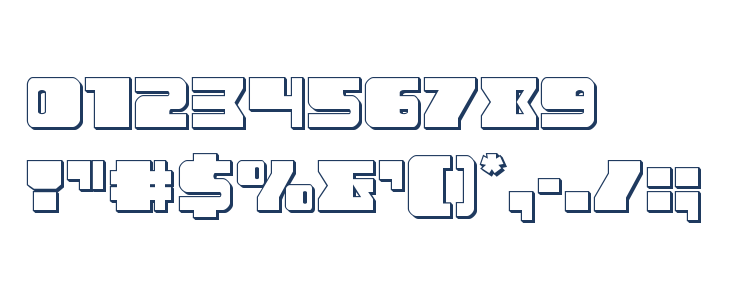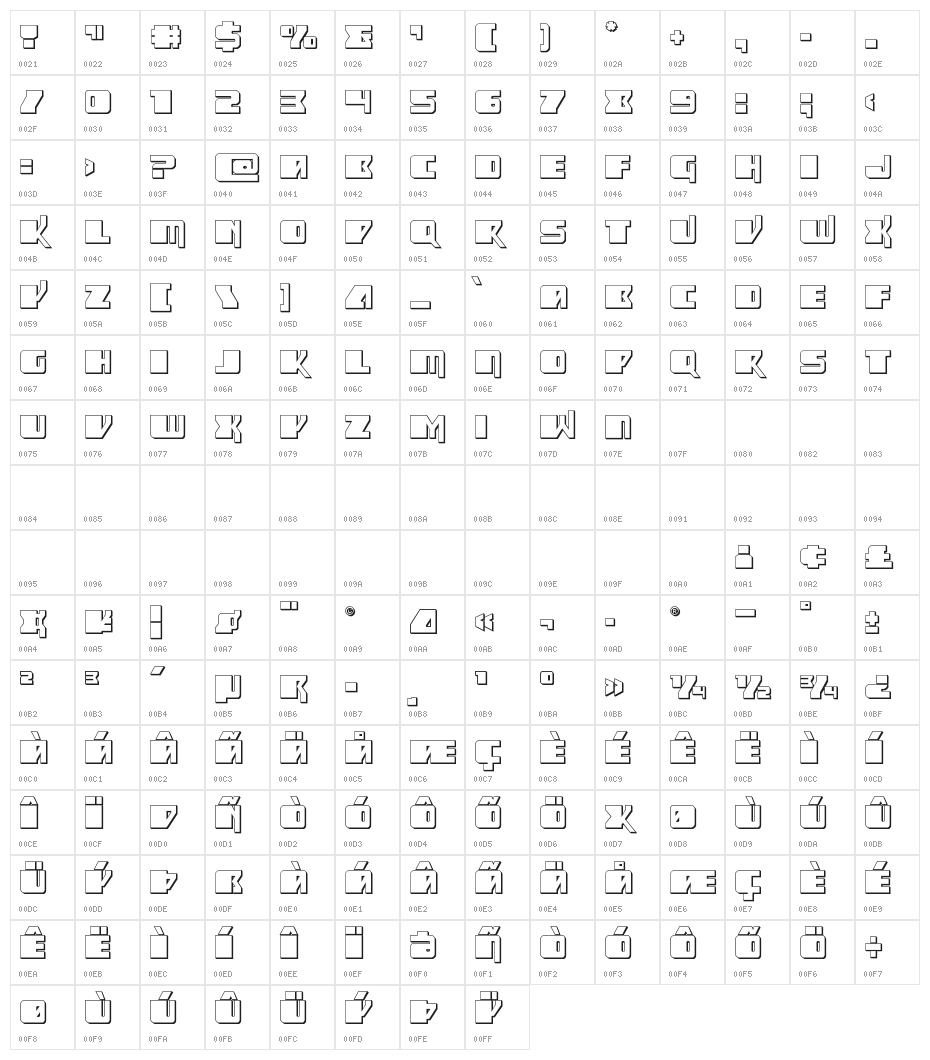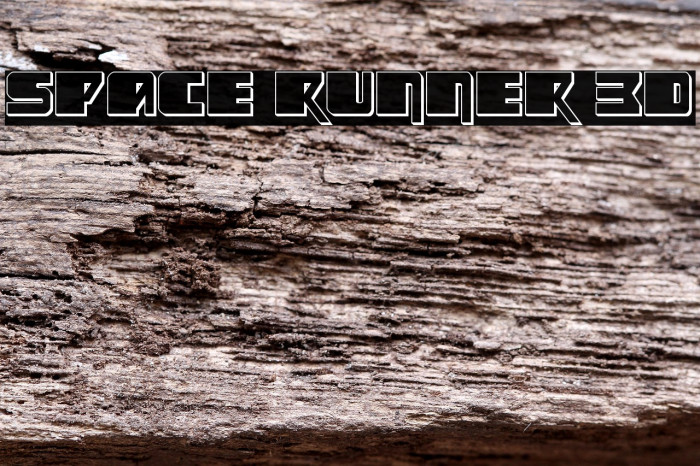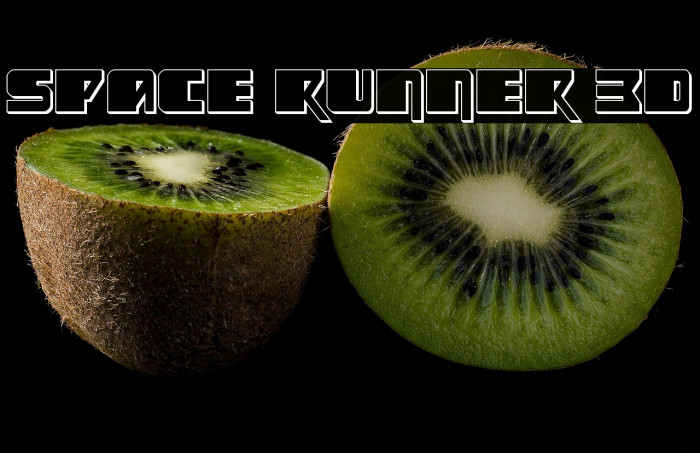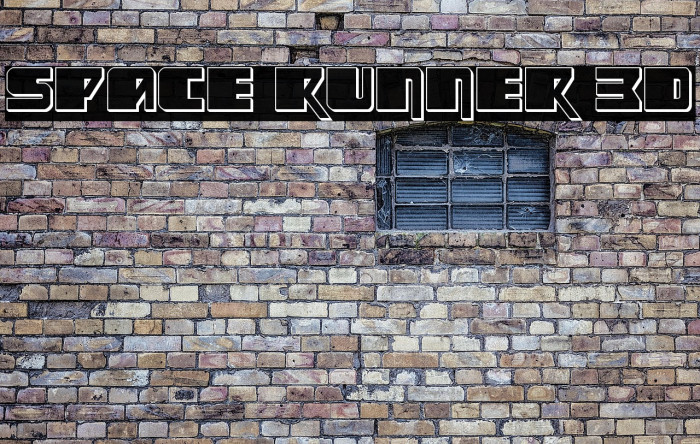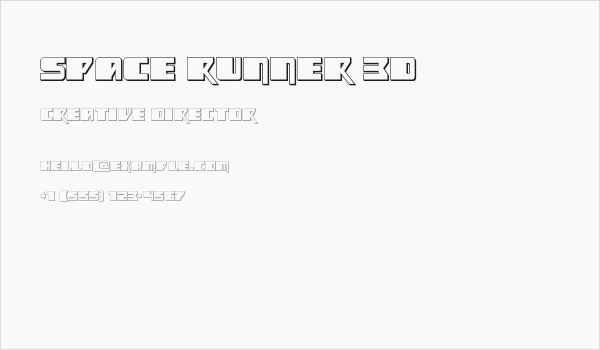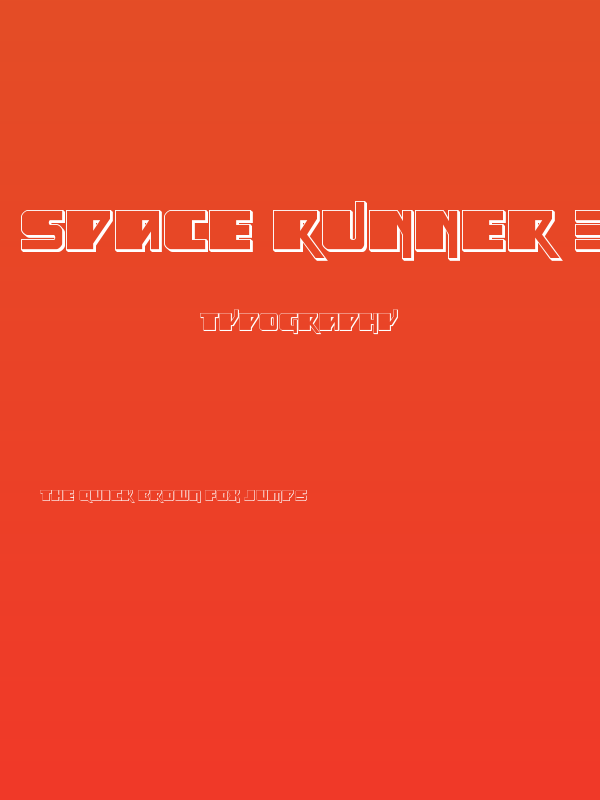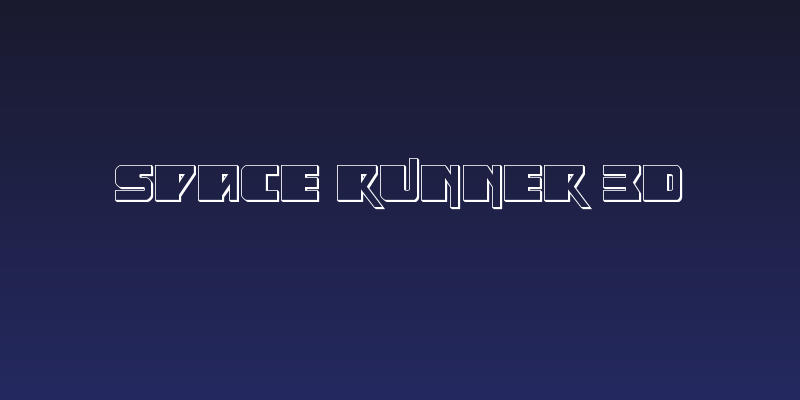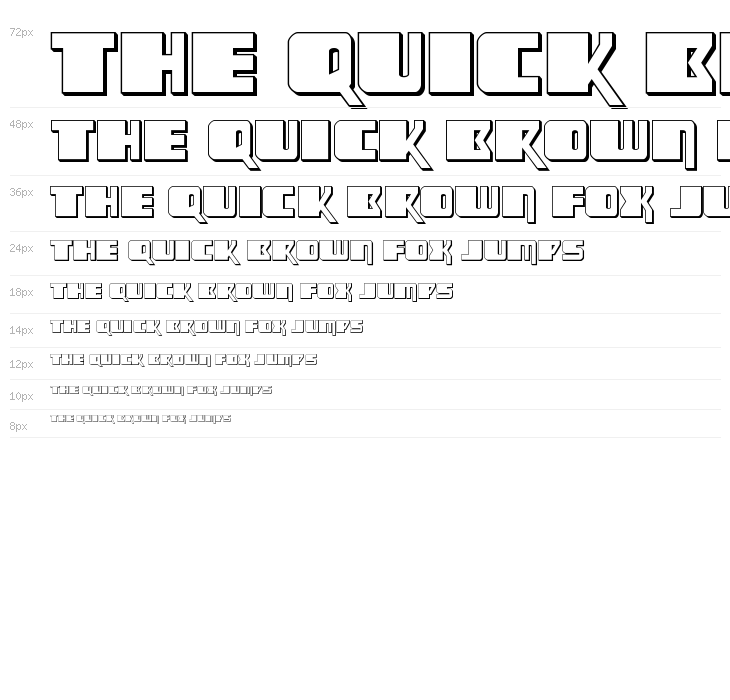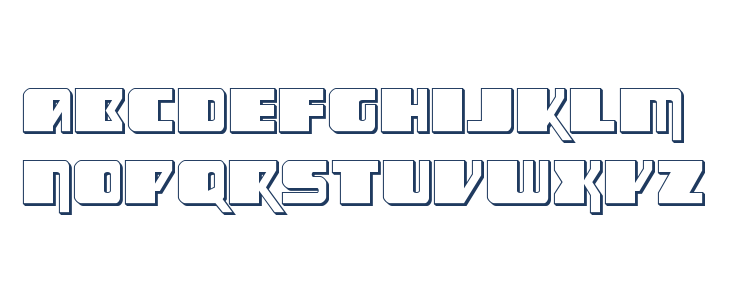
Space Runner 3D Font
Space Runner 3D Description
This font features a bold, futuristic design with a three-dimensional effect that gives it a striking, modern appearance. The characters are blocky and geometric, with sharp angles and clean lines that create a sense of movement and energy. The uppercase and lowercase letters maintain a consistent style, emphasizing the font's cohesive look. Numbers and special characters are designed with the same attention to detail, ensuring uniformity across all glyphs. The font's unique style makes it ideal for projects that require a strong visual impact.
| Overall Style | Futuristic |
| Proposed Projects | Ideal for video game titles, sci-fi movie posters, tech branding, and futuristic-themed designs. |